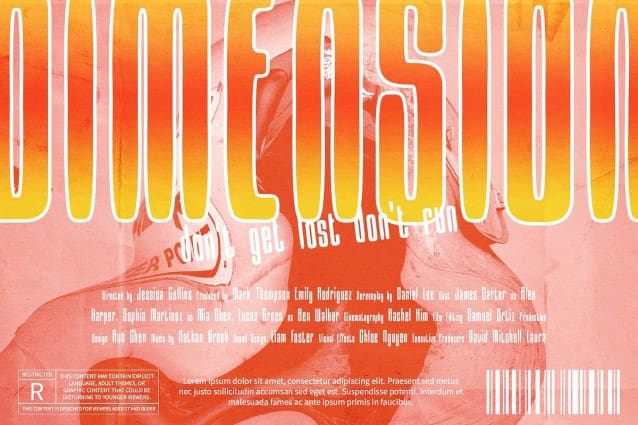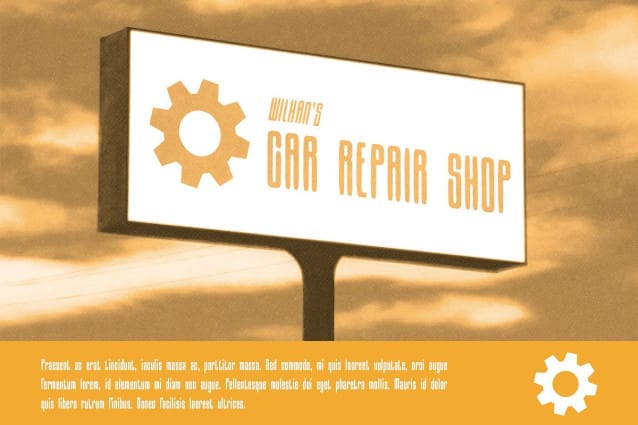
Albercio Drawn Font
Albercio Drawn Font is a modern sans serif font that combines a condensed shape with a distinctive drawn effect, presenting a sleek and artistic aesthetic. This innovative design makes it perfect for contemporary design projects, allowing creators to convey messages with style and clarity. The condensed form enhances space efficiency, ensuring that impactful messaging can be achieved even in limited areas without sacrificing readability.
Handcrafted Quality for Unique Character The unique drawn effect of Albercio Drawn introduces a handcrafted quality that adds warmth and personality to your designs. This artistic touch creates a striking contrast against its clean lines, offering a fresh perspective that resonates with audiences seeking authenticity. The font’s minimalistic style allows for versatility across various applications, making it suitable for anything from branding to editorial layouts.
Sophisticated Look for Branding and Promotion With its elegant design, Albercio Drawn is ideal for branding, promotional materials, and other visual communications where a blend of sophistication and creativity is essential. Its modern appearance ensures that it captures attention while maintaining clarity and visual appeal. Whether you’re designing an eye-catching logo, a captivating magazine spread, or dynamic social media graphics, Albercio Drawn stands out with its unique character and artistic flair.